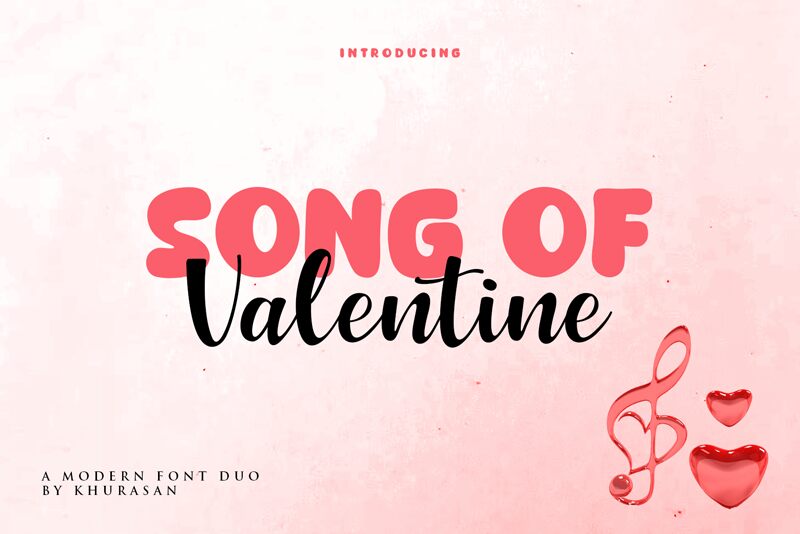
Song of Valentine
Song of Valentine font by Khurasan is a free handwritten script typeface that feels like ink brushed onto thick, creamy paper. The letters sweep and curl with an easy rhythm, giving every word a soft, romantic lilt without becoming messy or hard to read. Generous curves and connected strokes create a flowing line that feels warm and personal, like a note tucked into a bouquet.
Using Song of Valentine, you can bring that intimate mood to wedding invitations, save-the-dates, love notes, greeting cards, product packaging, and social media quotes. This free font shines on anything romantic, feminine, or celebratory, especially when you pair it with a clean sans serif for small supporting text. Set Song of Valentine a bit larger than your body copy, and let those lush, looping forms carry the emotional weight of your message.